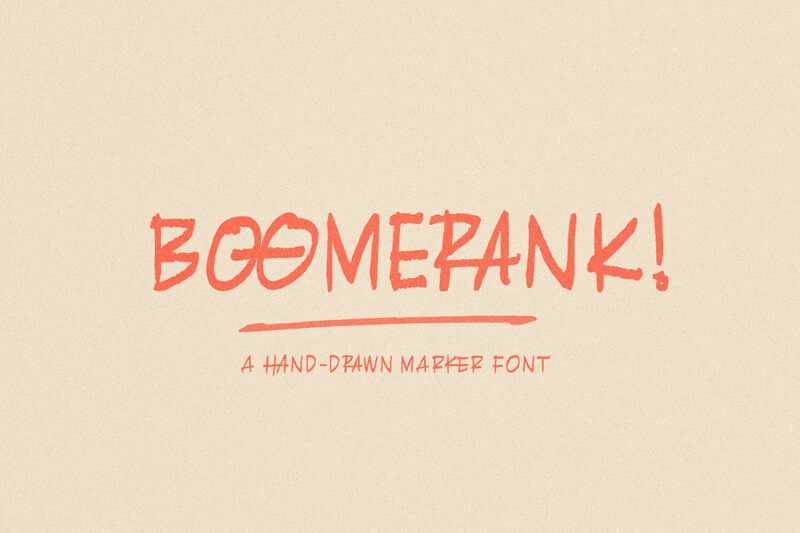
Boomerank is a captivating font that exudes a bold, energetic spirit. Crafted with a distinct brush-like stroke, it embodies the spontaneity and flair of hand-lettered designs. The font's expressive, marker-inspired strokes lend an organic, dynamic quality, conveying a sense of movement and vitality. Boomerank's striking visual impact makes it an ideal choice for attention-grabbing headlines, impactful branding, and vibrant typographic compositions.
Its versatility extends across various design applications, from eye-catching packaging and editorial layouts to dynamic social media graphics and dynamic website headers. Whether used as a standalone statement or seamlessly integrated into a broader design, Boomerank's unique character is sure to leave a lasting impression, captivating audiences with its raw, expressive allure.